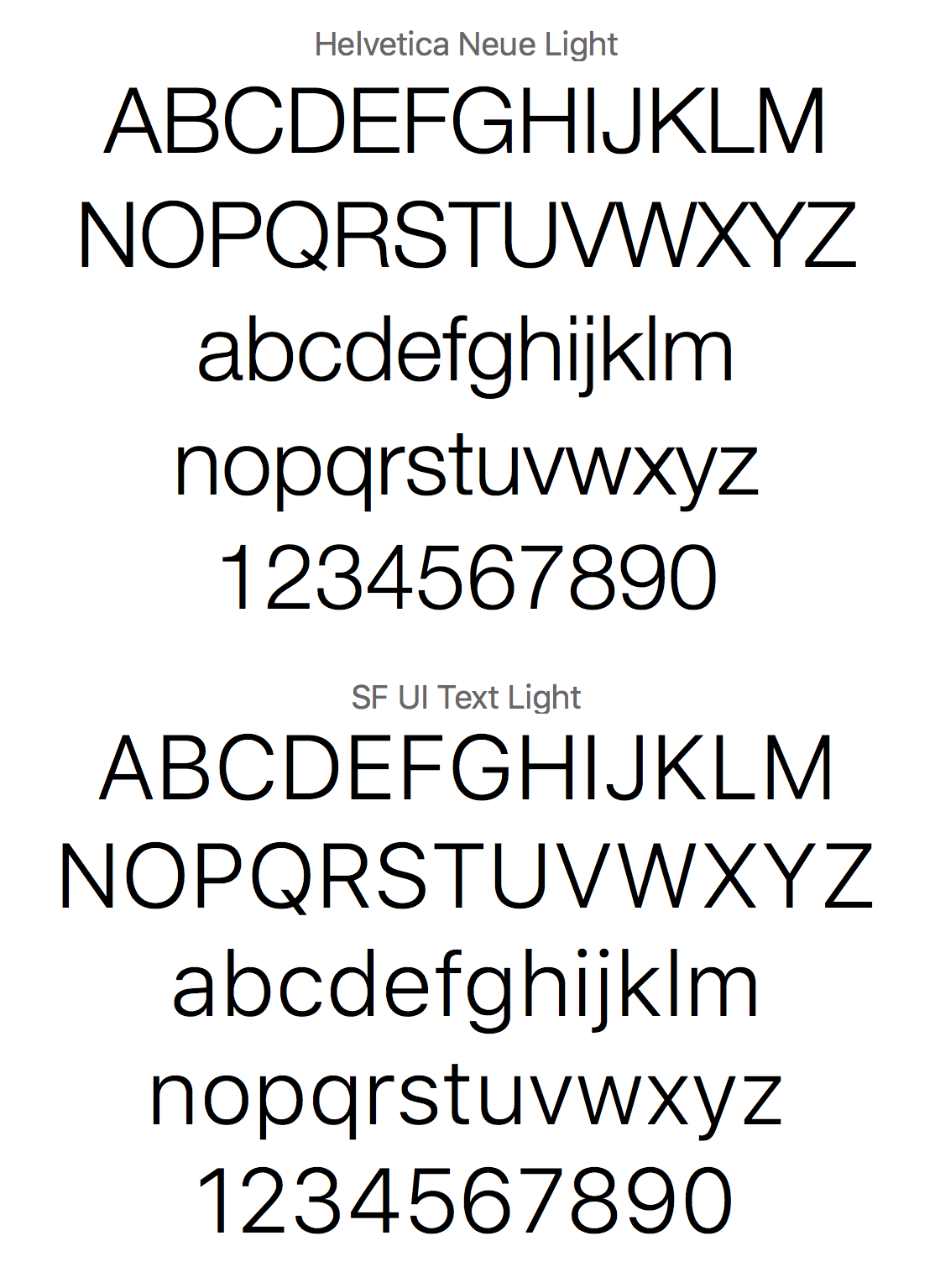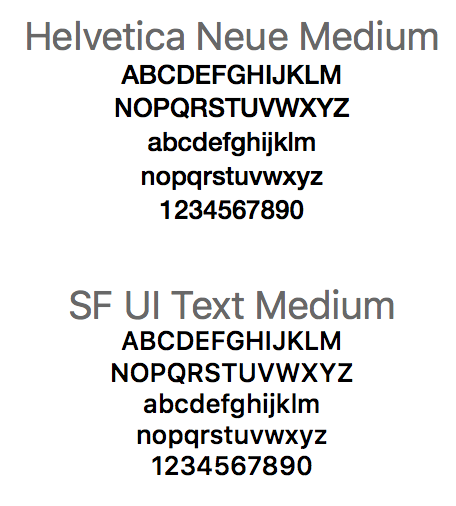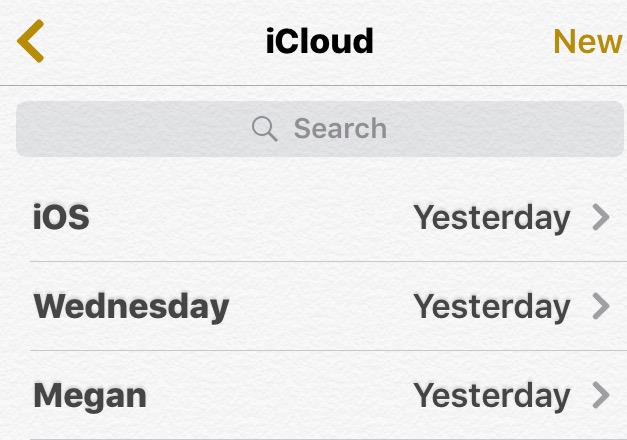
Okay it's fine in most places although I do prefer Helvetica Neue, but the numbers are hideous! The time at the top of the screen is the worst. It feels like I jailbroke my phone and installed an ugly custom font. It looks too wide and a little too bold. Also too androidy
Many people have complained about legibility issues with Helvetica Neue in iOS 7 & 8. (Though I have no issues and in fact did not like the later increase in font weight).
SF is rather similar to Helvetica Neue, but it is further tweaked to enhance legibility at small sizes. Hence SF Compact (on WATCH), and text at small sizes with increased weight in iPhone look especially different from previous versions.
You can especially appreciate the beauty of SF when it is used as a display font at large sizes. Too bad there were so many complaints about Helvetica Neue, plus the usage of Helvetica Neue could be so easily copied by other companies.
i dont even see a difference
Surely you’re jesting. The typeface is a lot spacier. The characters may not be all that different, but overall look does. Commas and quotations are wider as well.
It’s not a beautiful typeface, but it does improve legibility. I suppose that’s the sacrifice we have to make for a system typeface.
My only gripe with the fonts is that used in the Notes app. Never used that app previously, but now that I am, I've notice that the font looks blurry.
i only know cuz i have read about it. honestly cant spot the difference, same with El Capital 😀 unless its times new roman or comic sans it makes no difference to me. cant even tell holding my iPad on 8.4 next to it
I disagree. While Helvetica Neue is still a beautiful font, compared to all the other fonts Apple has used in their systems, it's my least favorite.
However, nothing will beat Apple's original "Chicago" font. That is definitely my #1 favorite font.
I'm loving it, but I'm on an iPad. Looks great, especially the lower case letters on the keyboard.
Using the Notes app I can't tell if this is a blurry font bug or whether they are trying some sort of debossing effect. Either way it looks like a mistake. I submitted it as a bug.
And really, a paper texture?
It is an embossed effect that is present in iOS 8 as well. The text itself is not blurry.
It's been like this since iOS7..?
Neither the paper texture or debossing are new.
It's more obvious in some places than others, for example the number 7 in Helvetica has a curve while it doesn't in SF.
It might just be my design background but it's very, very different to me. The text has a different "feeling" which is hard to explain.
There are many subtle differences that overall leads to very different personalities between the two font families.